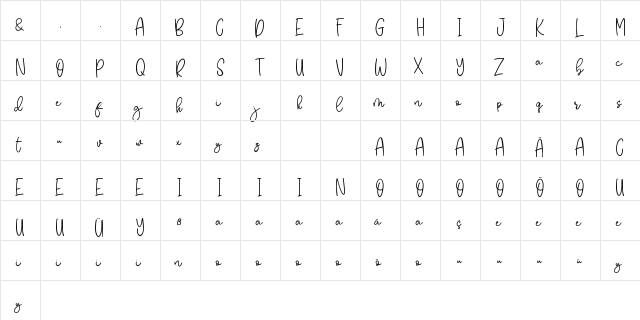
Berkyn Romance Regular
| Foundry | Creakokun Studio |
| Designer | M Arif Dwi Prasetyo & Eko Nurcahyo |
Design Context for Berkyn Romance Typeface
Berkyn Romance is a composed and adaptable typeface that performs quietly and consistently across a wide range of design contexts.